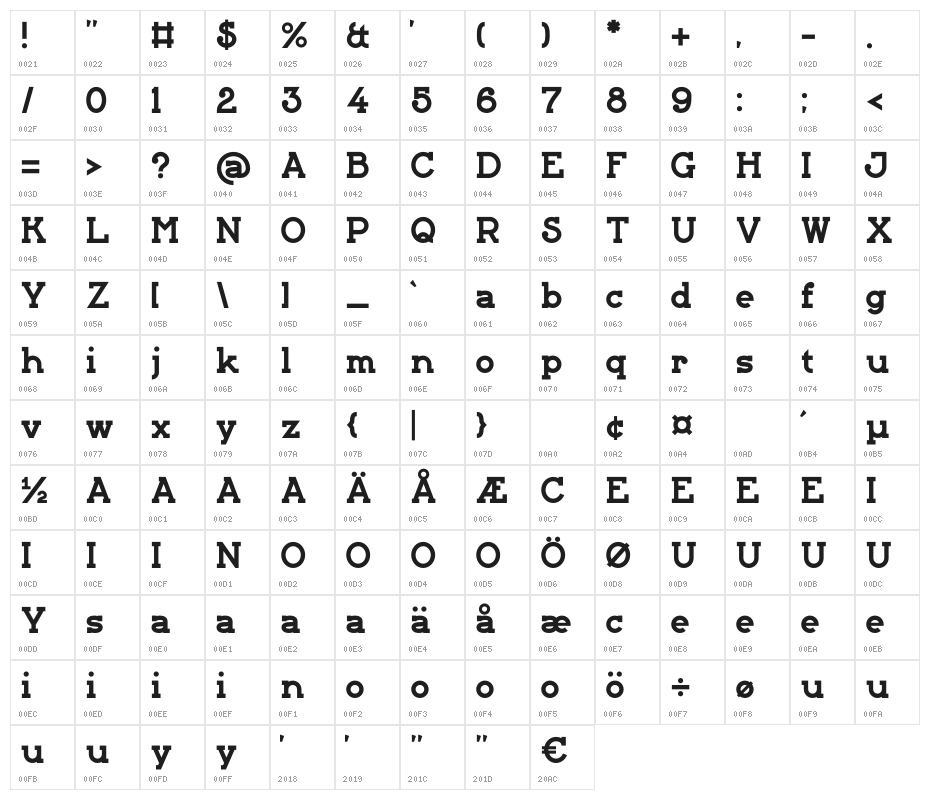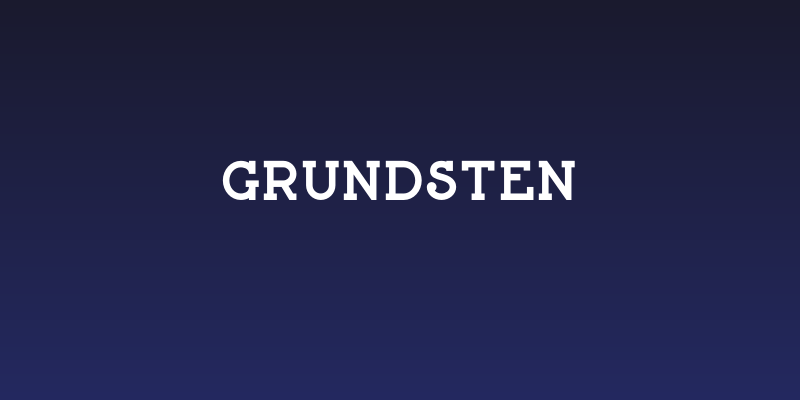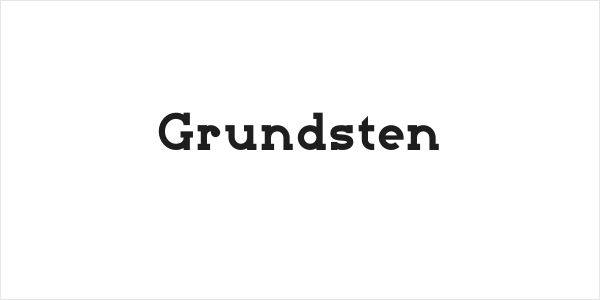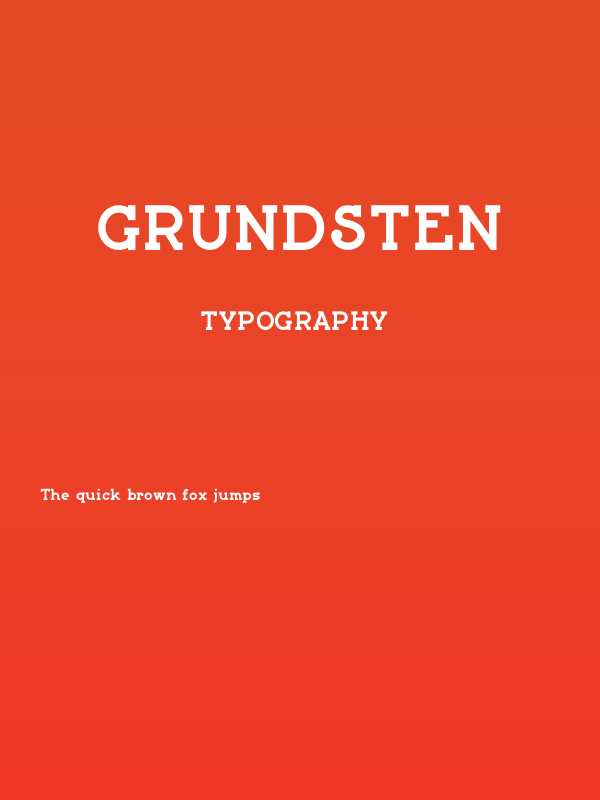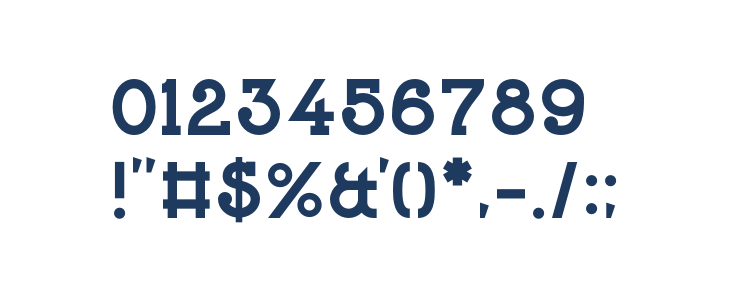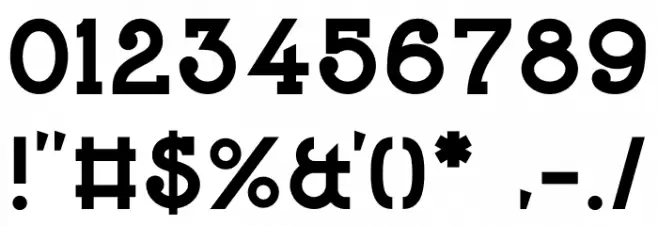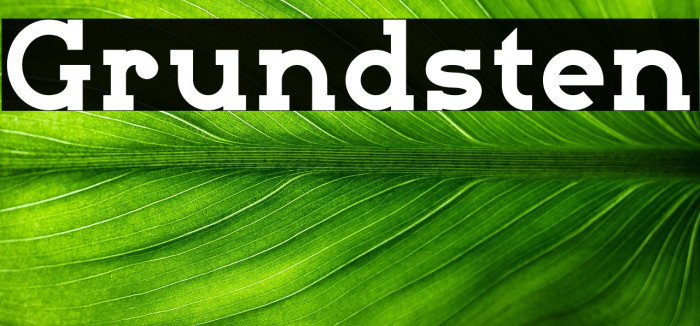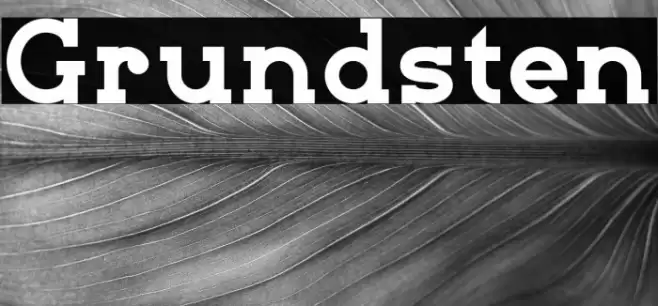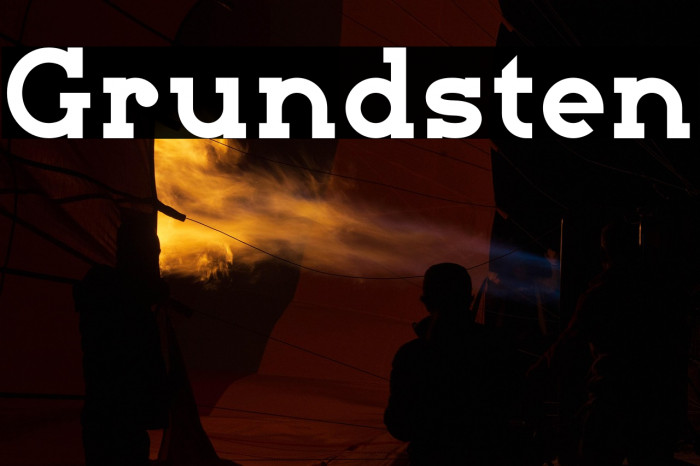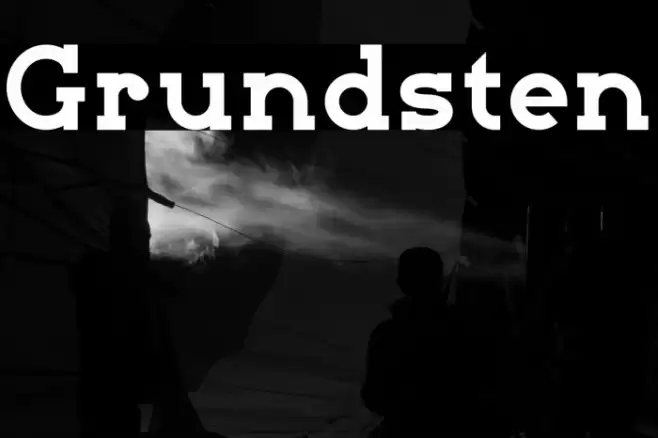
Grundsten Font
Grundsten Description
This font exhibits a bold and robust slab serif style, characterized by thick, block-like serifs that give it a strong and authoritative presence. The uppercase letters are uniformly aligned with a consistent height, while the lowercase letters maintain a balanced proportion, ensuring readability. The numerals are distinct and clear, making them suitable for both display and text purposes. Special characters are well-defined, adding versatility to the font's application. The overall design is clean and modern, yet it retains a classic touch due to the serif elements. This combination of modernity and tradition makes it suitable for a wide range of design projects.
| Proposed Projects | Ideal for branding, headlines, posters, and editorial design where a strong, impactful typeface is needed. |